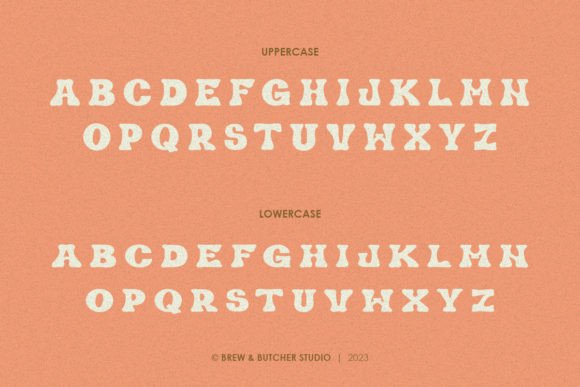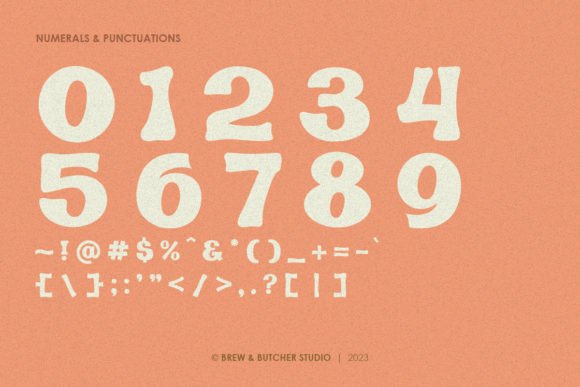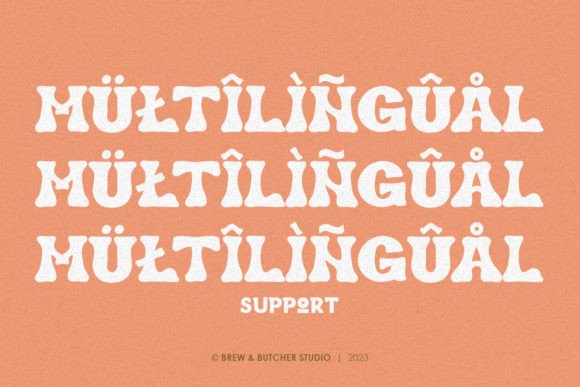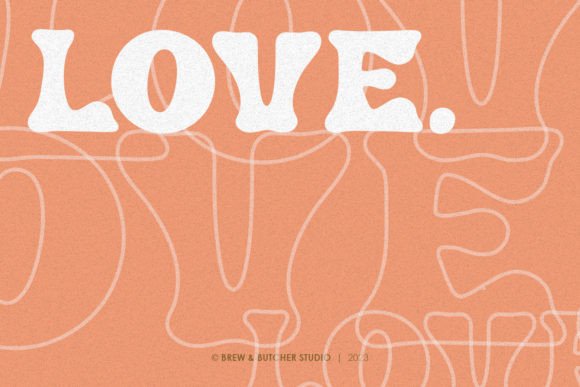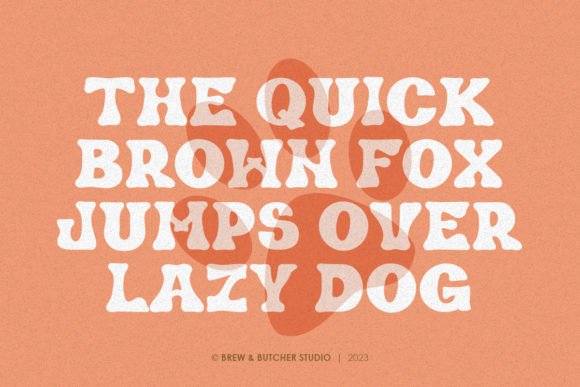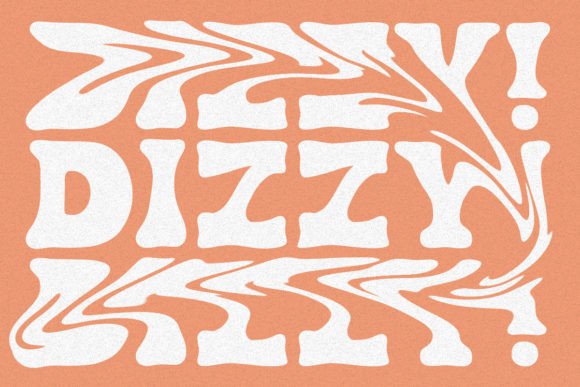
Get Ready to Pop with the Broeny Font
Have you ever been in a creative zone, surrounded by swirling colors and shapes, and suddenly a font sparks an idea that sets your imagination ablaze? For designers, this moment is a thrill unlike any other. It’s a fusion of art and innovation, and it’s exactly what the Broeny Font embodies. This abstract bubble typeface style is a masterclass in smooth corners and psychedelic vibes, making it a perfect addition to any project.
As a versatile font, Broeny is ideal for headers, posters, flyers, banners, and even digital platforms like landing pages and portfolios. Its fun and interesting nature makes it a valuable asset for designers looking to elevate their work. Whether you’re working on an album cover or a promotional banner, the Broeny Font is sure to make a statement.
Designer Review: Broeny Font
I recently had the chance to work with the Broeny font, and I’m excited to share my honest review with you.
- The Broeny font has a unique and playful feel that’s perfect for modern designs. Its rounded edges and friendly demeanor make it an excellent choice for branding and advertising materials.
- The font is highly legible, even at smaller sizes, which is a must-have for any font.
- The Broeny font is highly customizable, with a wide range of weights and styles to choose from.
- The Broeny font may not be suitable for formal or professional designs, as it can come across as too casual or playful.
- The font may not be as versatile as some other fonts, and it may not work as well in certain contexts, such as in small text or at very large sizes.
- The font’s rounded edges can sometimes make it difficult to read at very small sizes or in low-light conditions.
Overall, I think the Broeny font is a great choice for modern designs that need a playful and approachable feel. While it may have some limitations, it’s a solid addition to any designer’s toolkit.
Tips for Getting the Most Out of Broeny Font
Use Broeny Font for titles, headings, and emphasis in your designs. This font is perfect for creating a modern and elegant look. Experiment with different font sizes and styles to add visual interest to your designs.
Use Broeny Font for:
- Food and drink menus